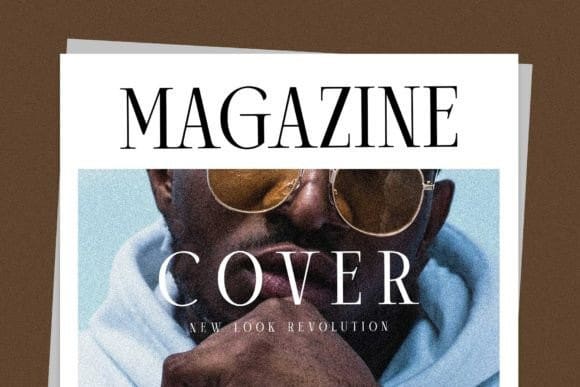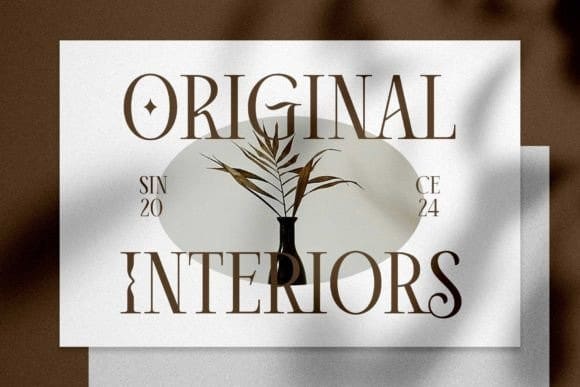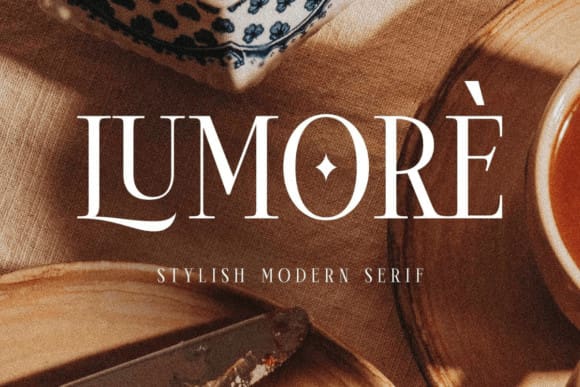
Lumore Font
Lumore Font is a satisfiying display serif font. It’s classic and modern. Feast your eyes on charming ligature touches and unique special characters. Lumore is designed for those of you who need a classy, ​​beautiful, minimalist and luxurious touch.
This font is perfect for logos, logotypes, headlines, magazine covers, wedding, cards, labels, signage, websites and more.